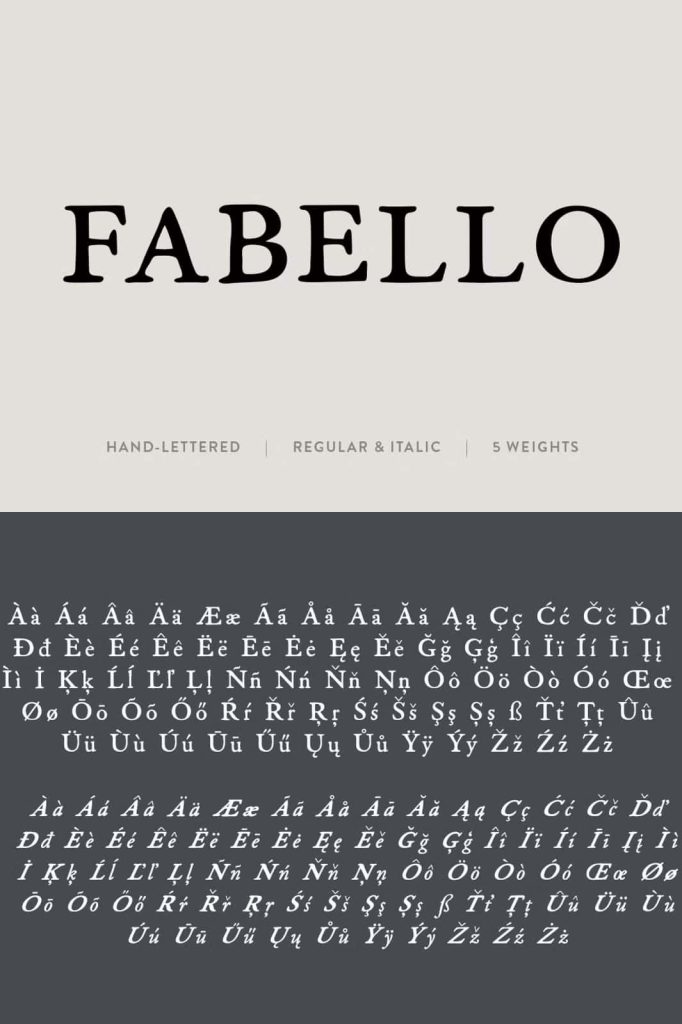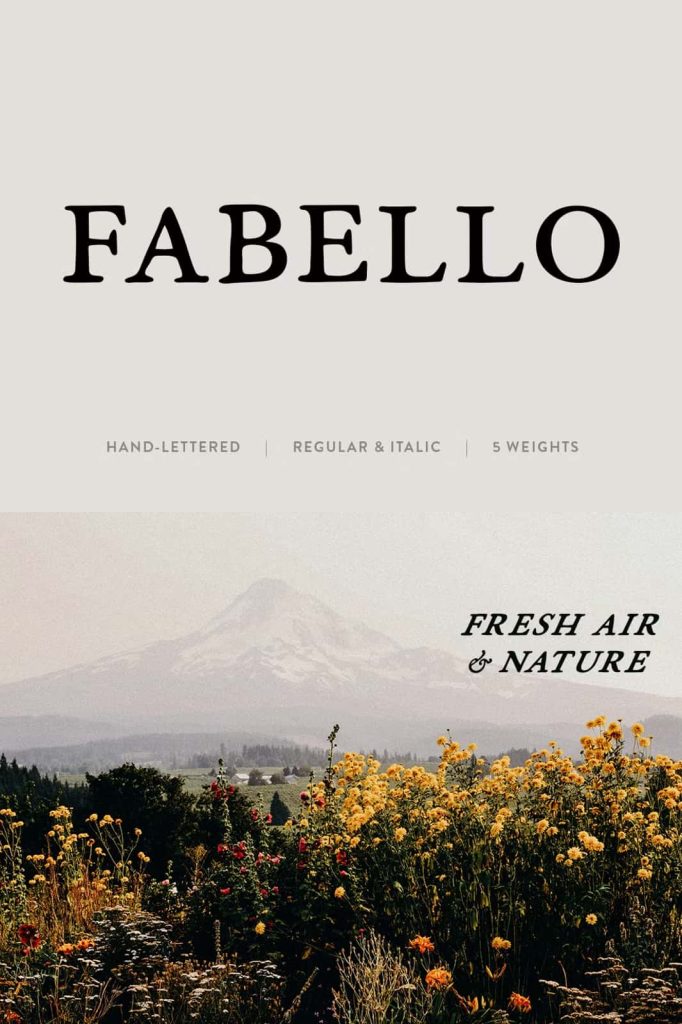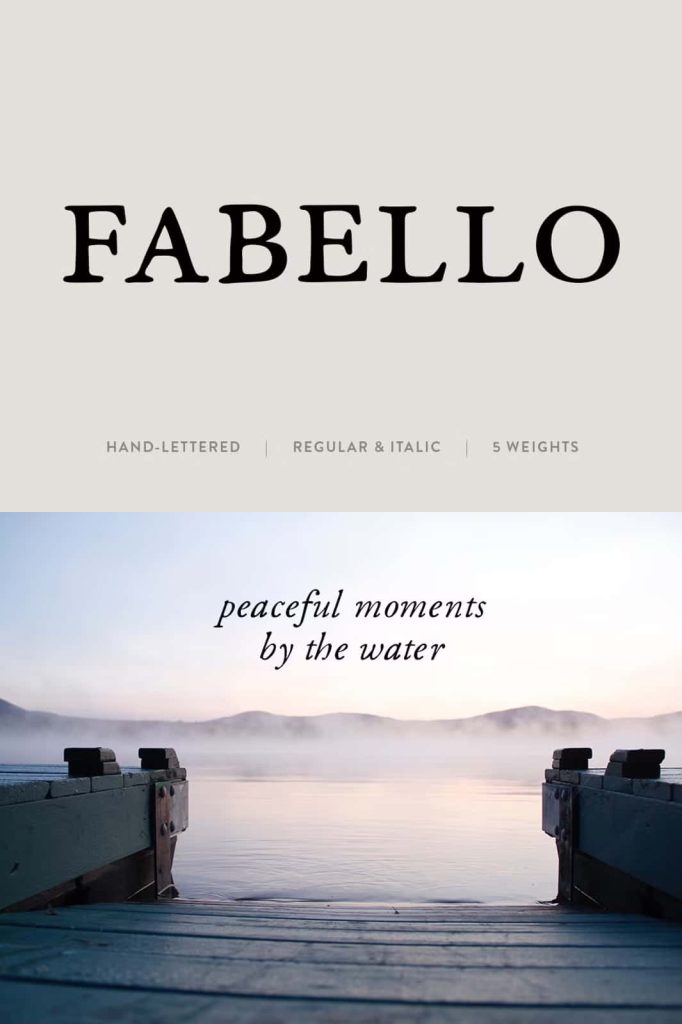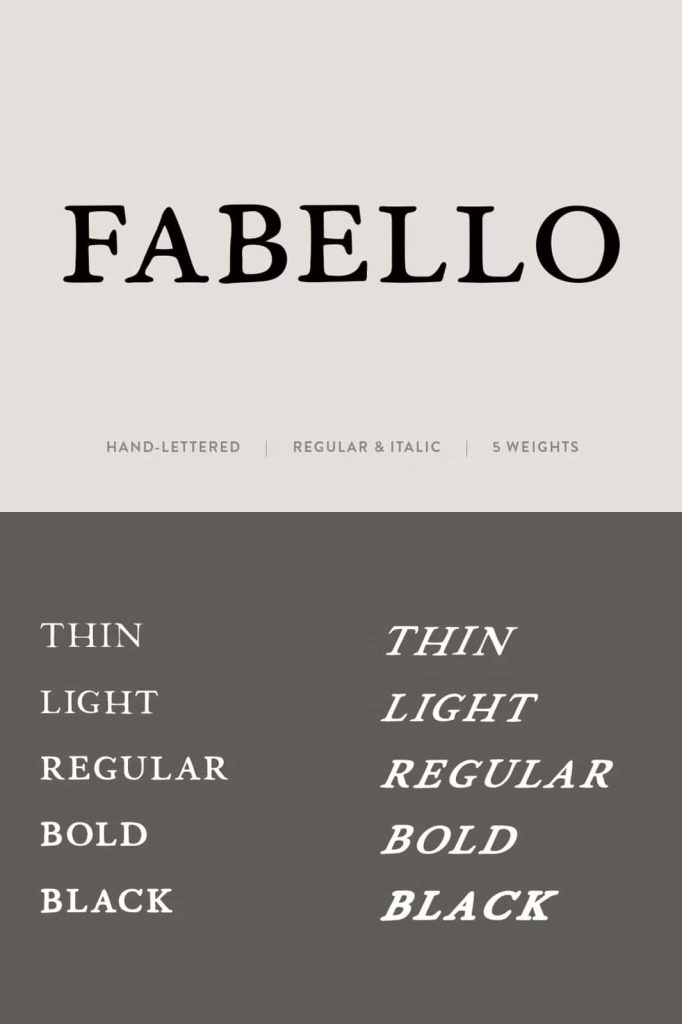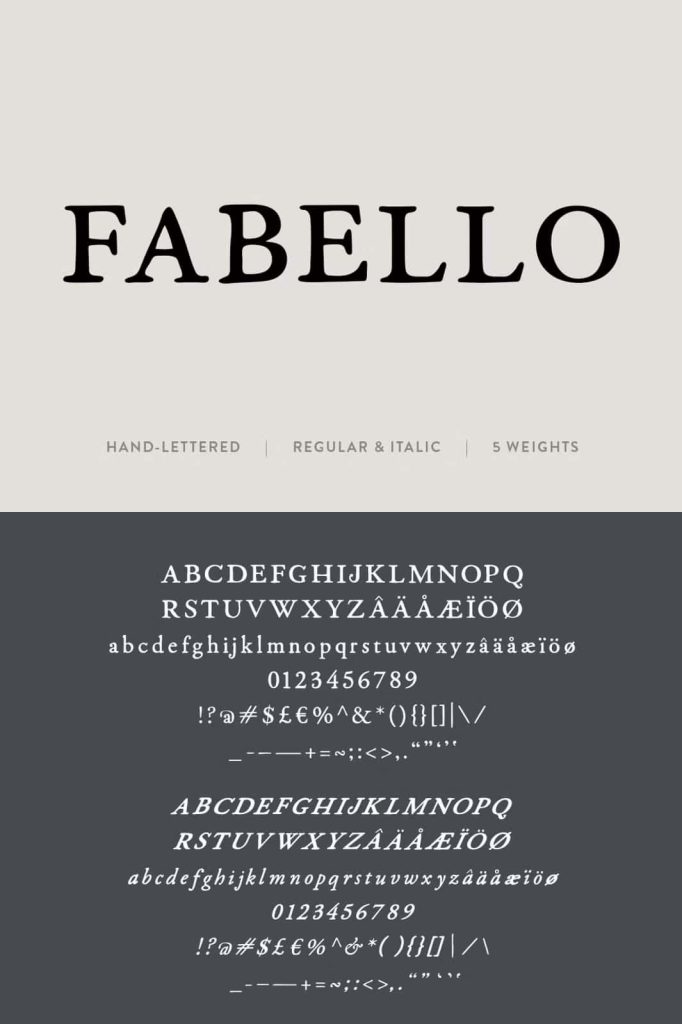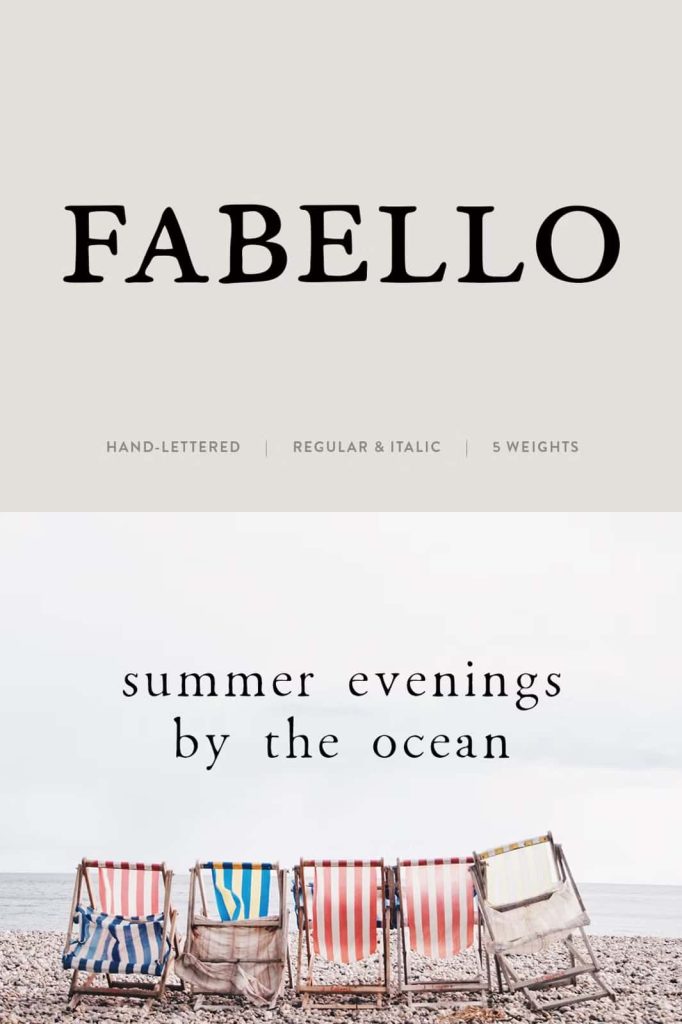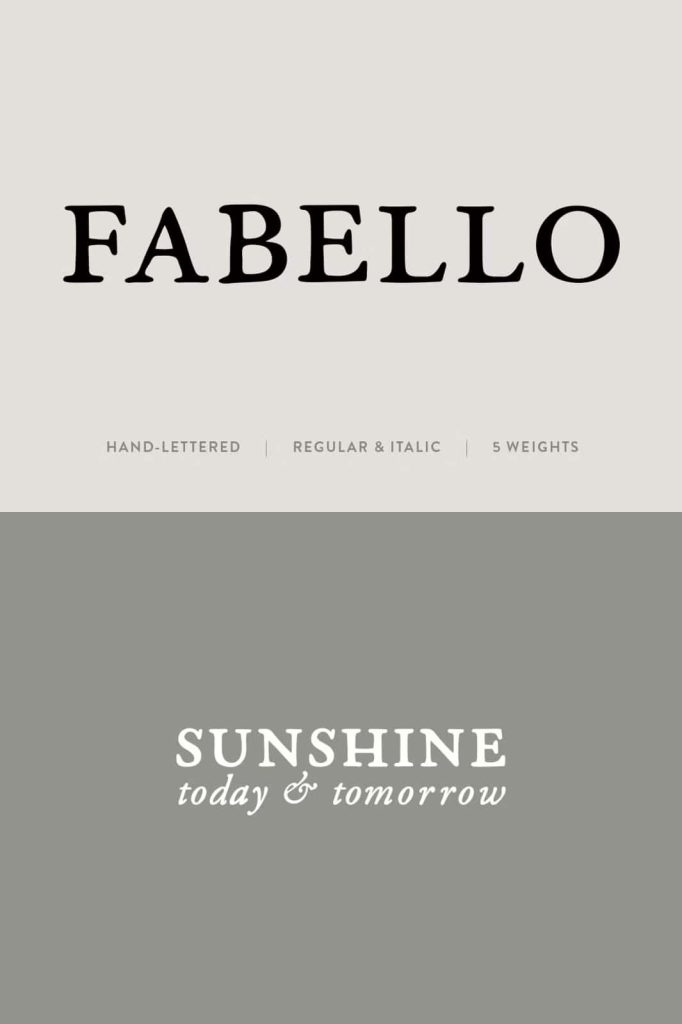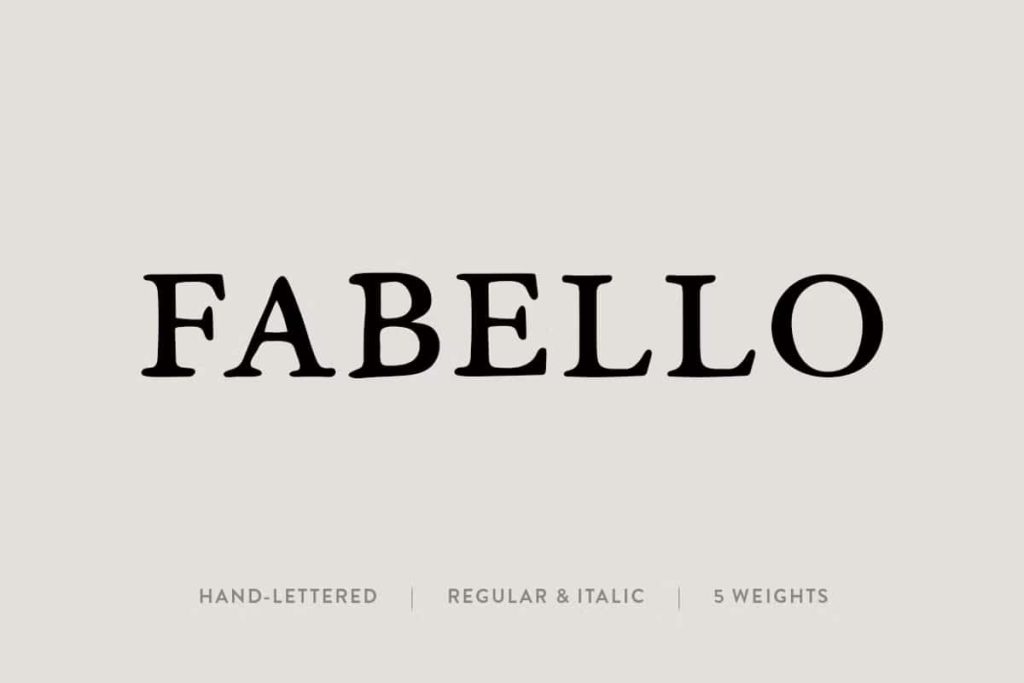
The Fabello Font
Fabello was created to embody my individual design and lettering style. The font creates a timeless feel while tipping its cap to the past with its vintage-inspired lines. From far away, the crisp lines may fool you but zoom in to see a nice organic wave in the letters. With its bold feel and touch of organic, this font is meant to be versatile. It is perfect for all projects that need anything from a naturally bold or a minimalistic thin look.